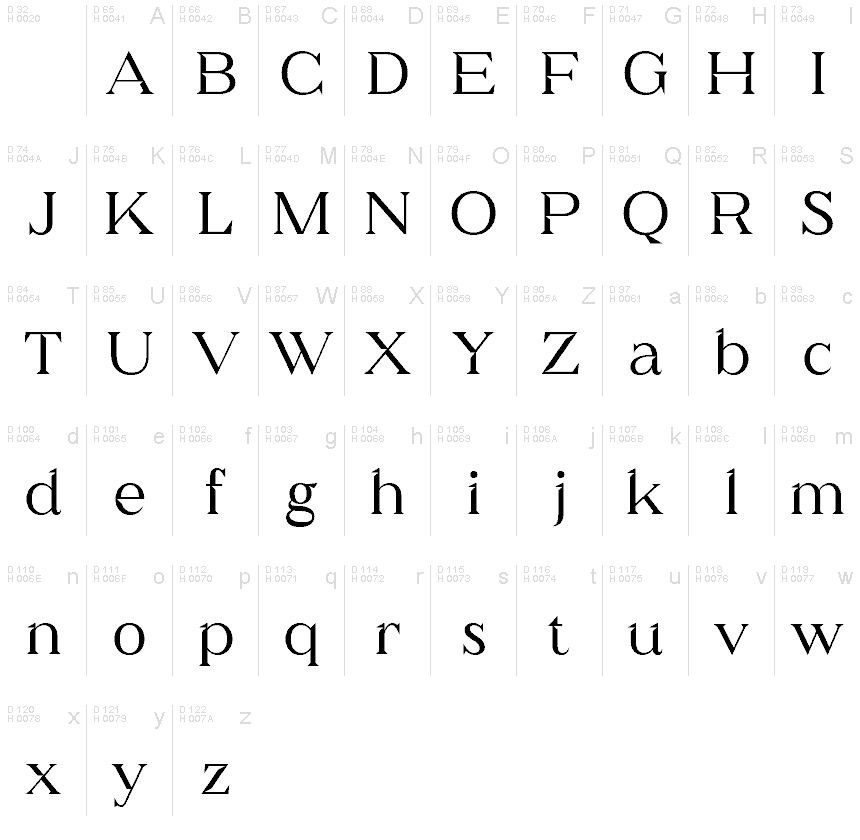
CS Bianca Demo Regular
CS Bianca font is a free serif font designed by Craft Supply Co with an elegant, professional, and sophisticated character. Each letter gains the user’s attention when they are minimal, and even more when they are capitalized since every text comes out as modern with timeless designs within each line. The serifs are even found in the slightly curved nature of some ligatures.
Eye-catching websites, business cards for several sectors, sleek stationery items that can be customized for businessmen and women or students notebooks; these are some of the projects that easily benefit from using such a superb font. Other ideas would include stamps, postcards design graphics for apps and other digital platforms.